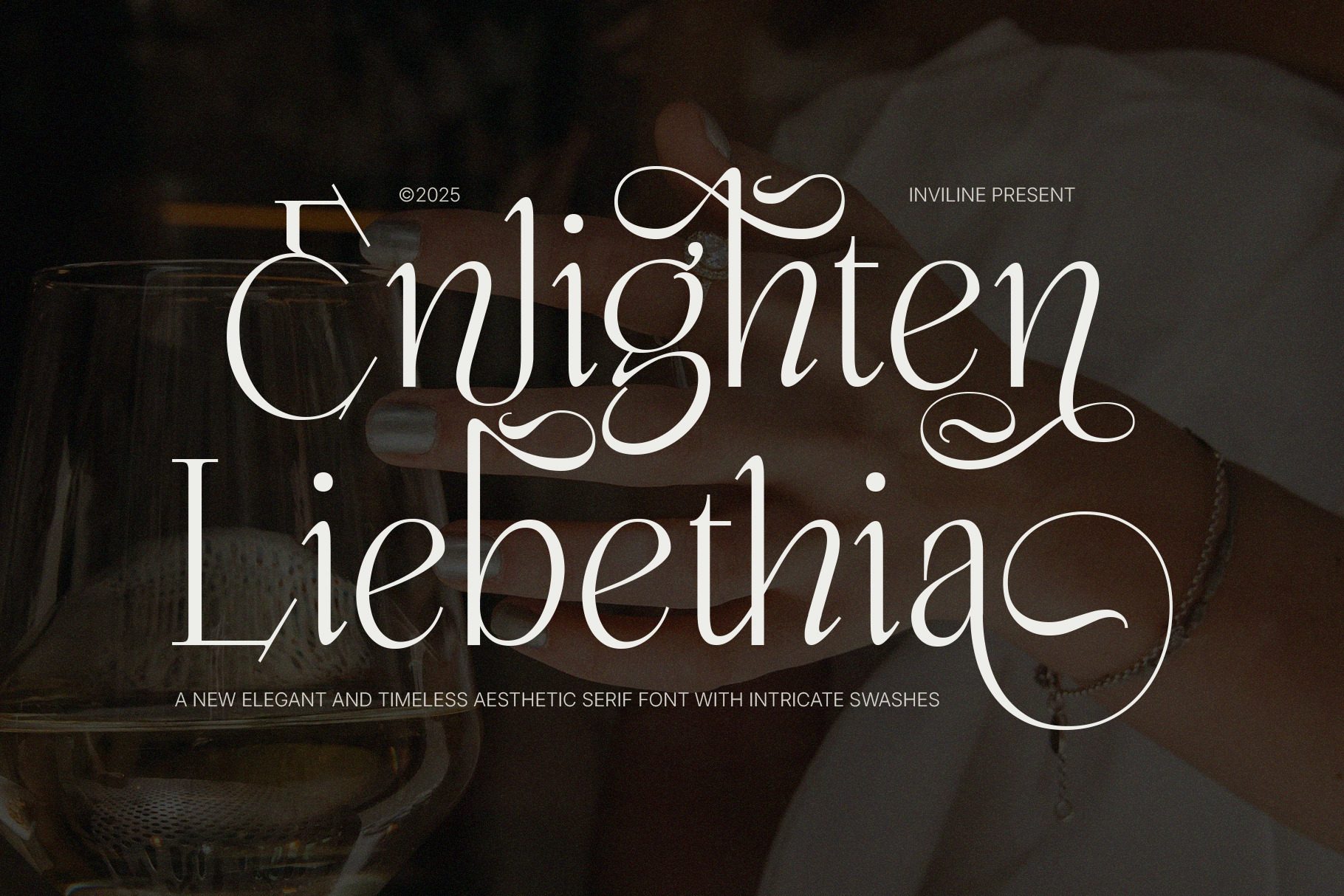
Enlighten - Aesthetic Serif Font
Enlighten is an elegant aesthetic serif typeface created with graceful curves, refined contrast, and expressive ornamental details. Inspired by timeless editorial typography, luxury branding, romantic stationery, and contemporary fashion aesthetics, it combines classic serif sophistication with artistic flourishes.
Its delicate strokes and sweeping swashes give every composition a distinctive, premium character while maintaining a modern and sophisticated visual presence.
Enlighten combines high-contrast serif construction with decorative curves and calligraphic-inspired swashes. Its standard letterforms provide an elegant typographic foundation, while expressive characters add movement and personality to headlines, names, logos, and short phrases.
The font works especially well in editorial layouts, beauty branding, luxury packaging, wedding stationery, perfume identities, magazine covers, and sophisticated social media designs.
Use Enlighten as a statement display typeface and combine it with a clean sans serif or understated serif font for captions, descriptions, and longer supporting copy.
Enlighten aesthetic serif font
Uppercase characters A–Z
Lowercase characters a–z
Numerals 0–9
Standard punctuation and symbols
Decorative swash characters
Stylistic alternate characters
Multilingual accented characters
Elegant aesthetic serif design
High-contrast thick and thin strokes
Graceful decorative swashes
Refined and sophisticated letterforms
Calligraphic-inspired details
Expressive uppercase characters
Elegant lowercase construction
Uppercase and lowercase alphabet
Complete numerals
Standard symbols and punctuation
Strong visual impact at medium and large sizes
Ideal for logos, headlines, names, and short phrases
Works beautifully with luxury, fashion, beauty, and romantic visuals
Easy to pair with minimalist sans serif fonts
Use Enlighten at medium or large sizes to showcase its elegant contrast and decorative details. It works best for logos, headlines, names, invitations, packaging titles, and short statements rather than long paragraphs.
Pair Enlighten with a clean sans serif font for captions, dates, product information, and supporting text. Allow extra space around decorative characters so the extended swashes remain visually balanced.